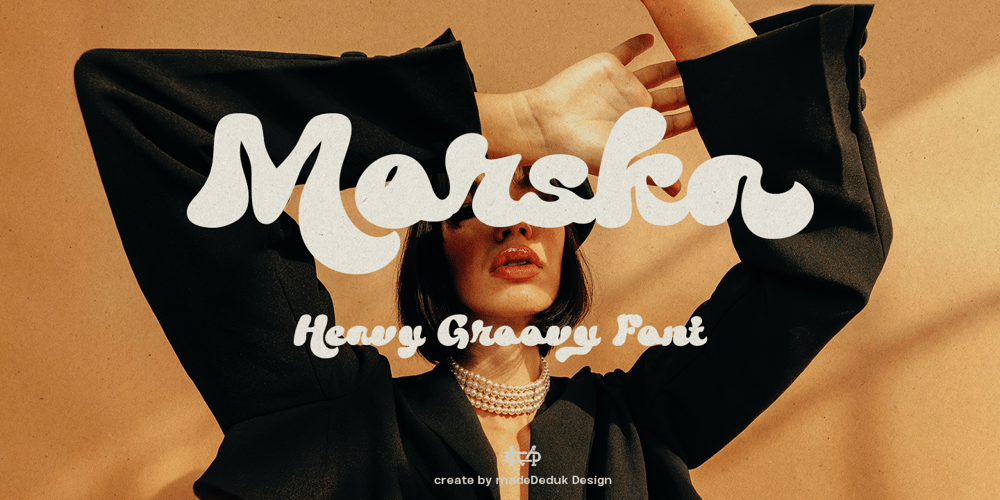
Morska Font Family was designed by madededuk and published by madeDeduk. Morska contains 1 styles and family package options. Morska is a heavy groovy font come with 80’s script style. Retro and refined you can explore and combine creating rhythm for comfortable reading. This font perfect for any projects, such logotype, stickers, greeting / wedding cards, packaging design, headlines, brand identity, t-shirt, posters, magazines, books, Instagram, websites, and many more.Feature Uppercase & Lowercase Number & Symbol International Glyphs Multilingual support Alternative Ligature Hope you enjoy it.